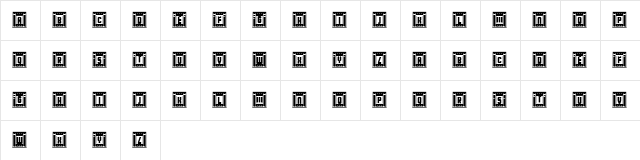
Broadway Capitals Light Negativ Regular
Design Context for Broadway Capitals Light Negativ Typeface
Broadway Capitals Light Negativ is a composed and adaptable typeface that performs quietly and consistently across a wide range of design contexts. The delicate stroke weight brings airiness and refinement to layouts.
Pro Tip: Use Broadway Capitals Light Negativ in both headline and body roles to test its range before committing to a single application.